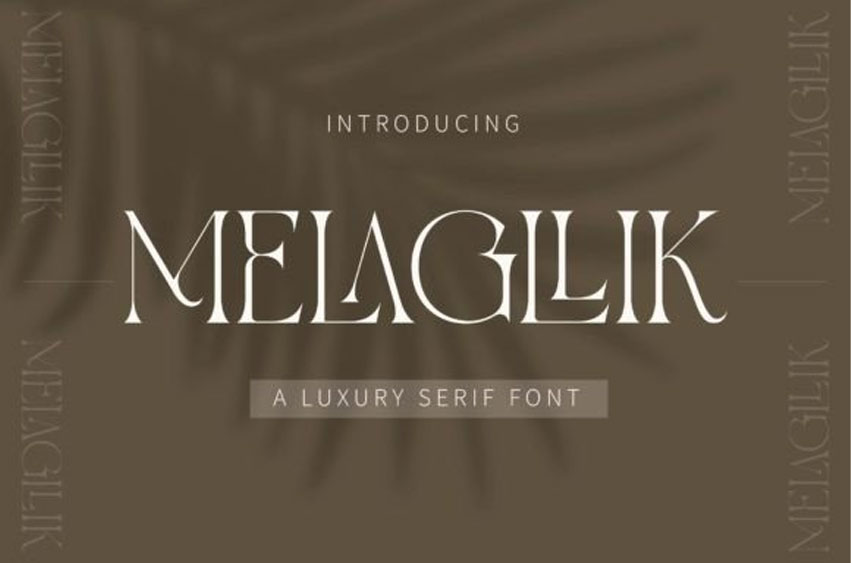
Melagllik Font
Melagllik Font is a stylish, elegant, and delicate serif font. Its luxurious appearance is perfect for branding, logos, the fashion industry, cosmetics packaging, or anything that requires a sophisticated, refined look.